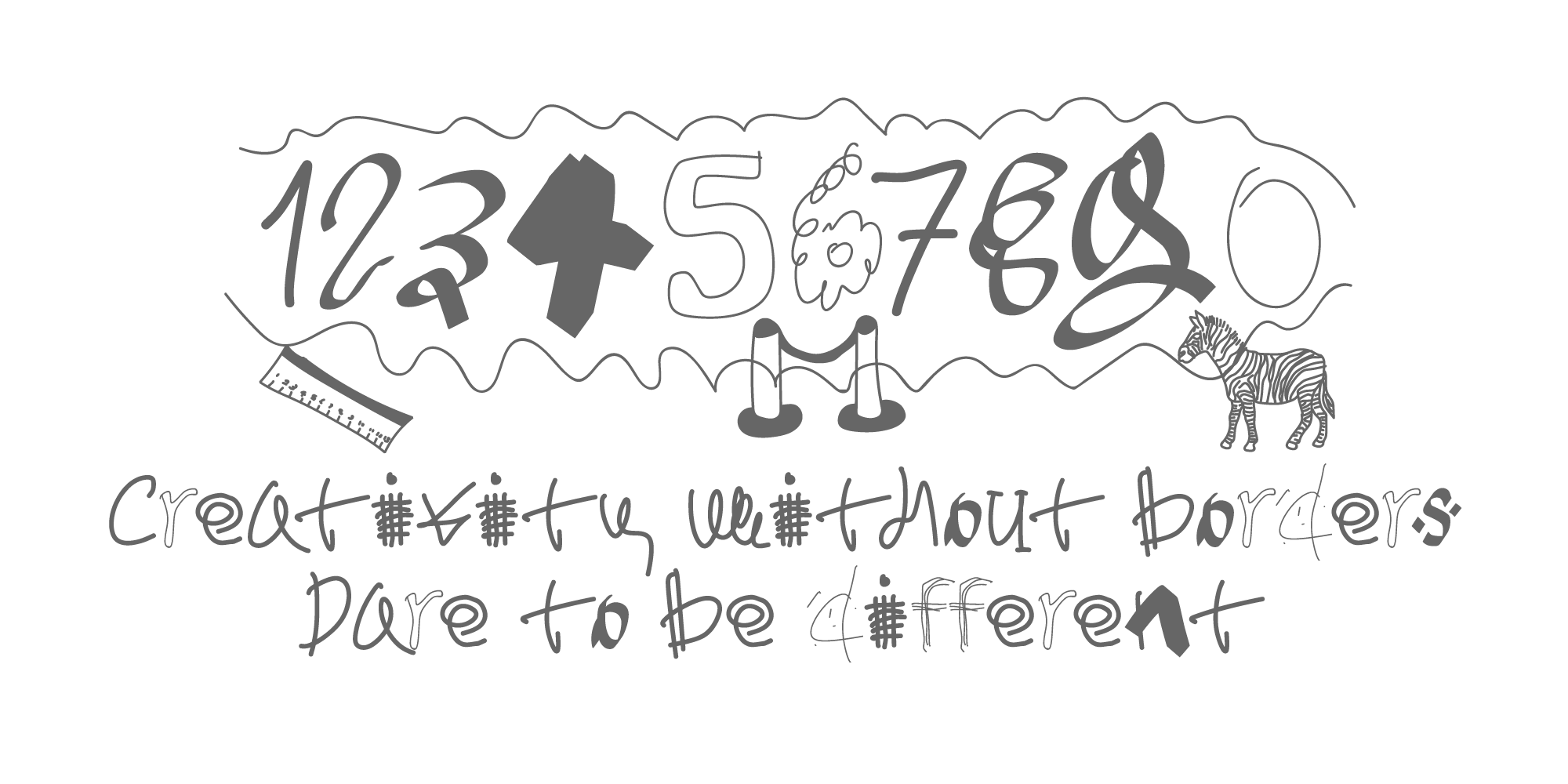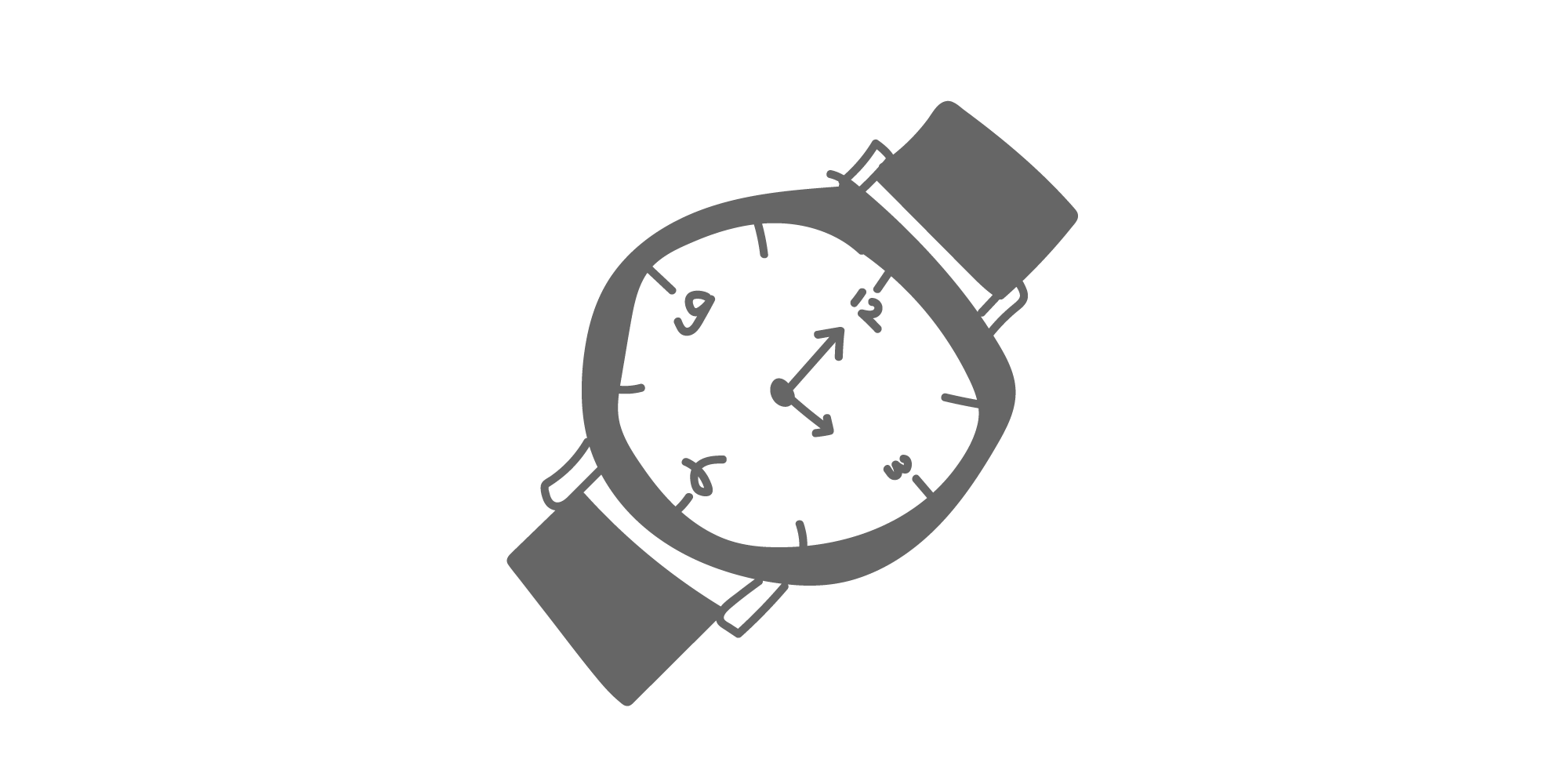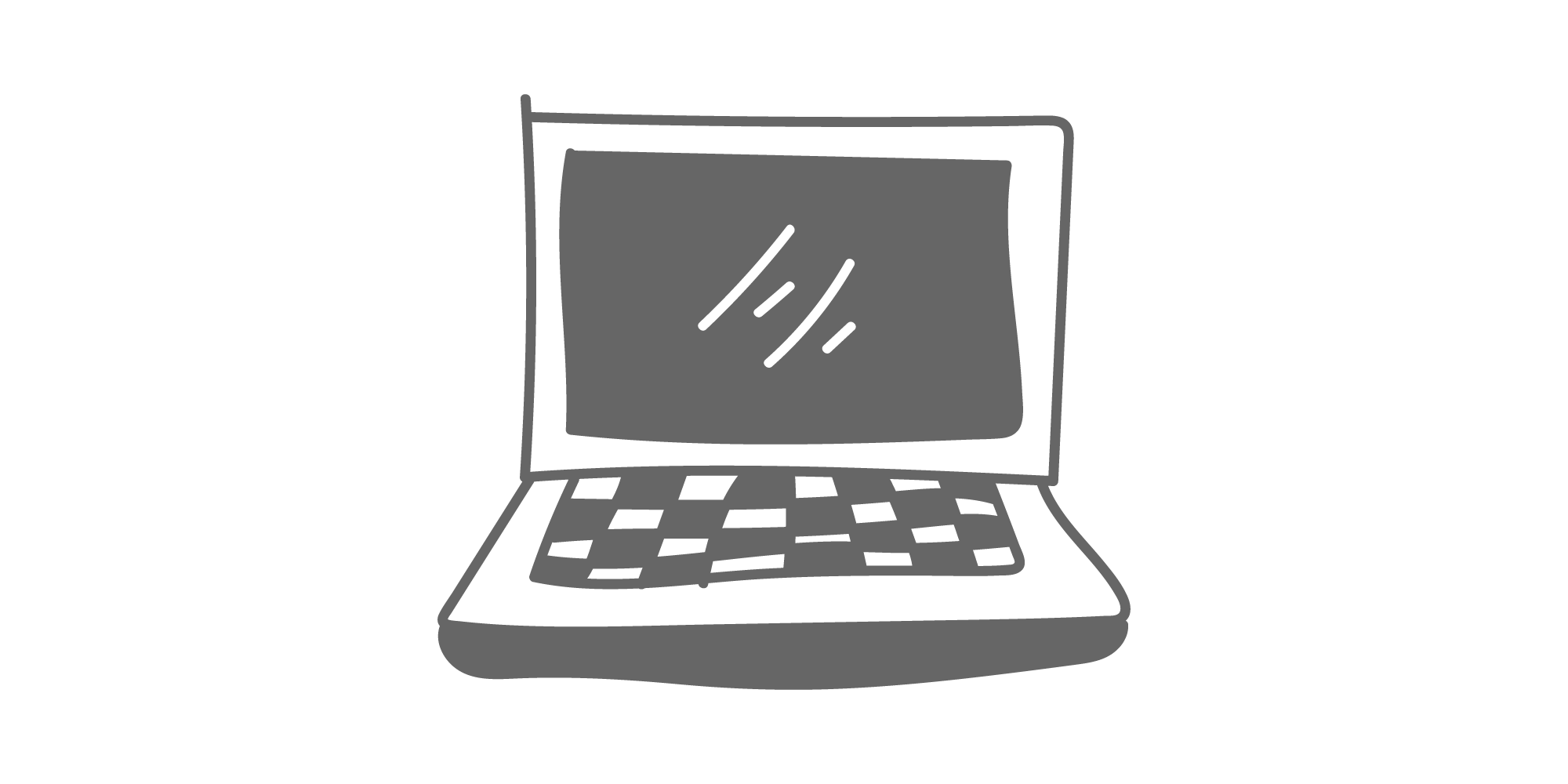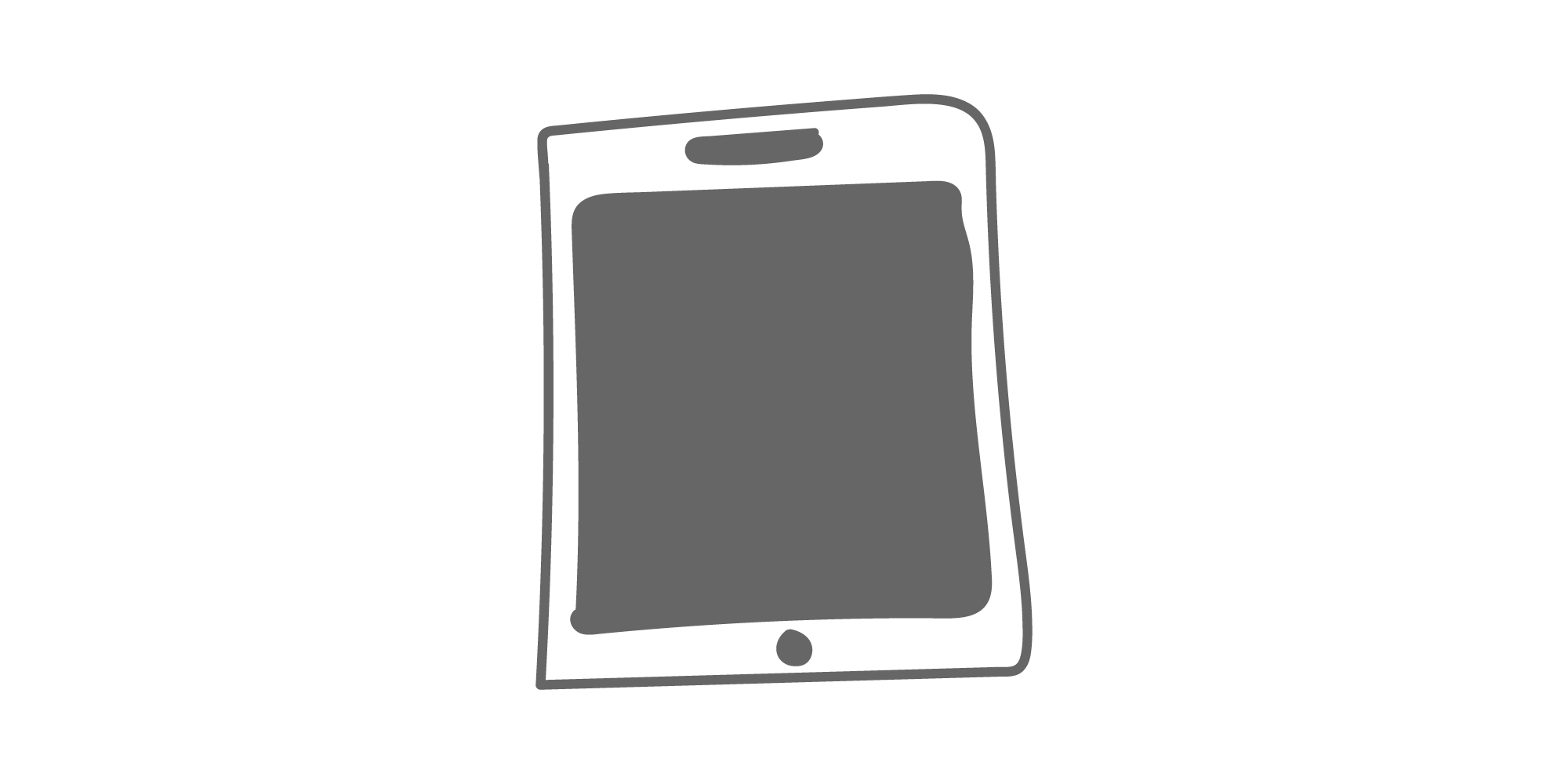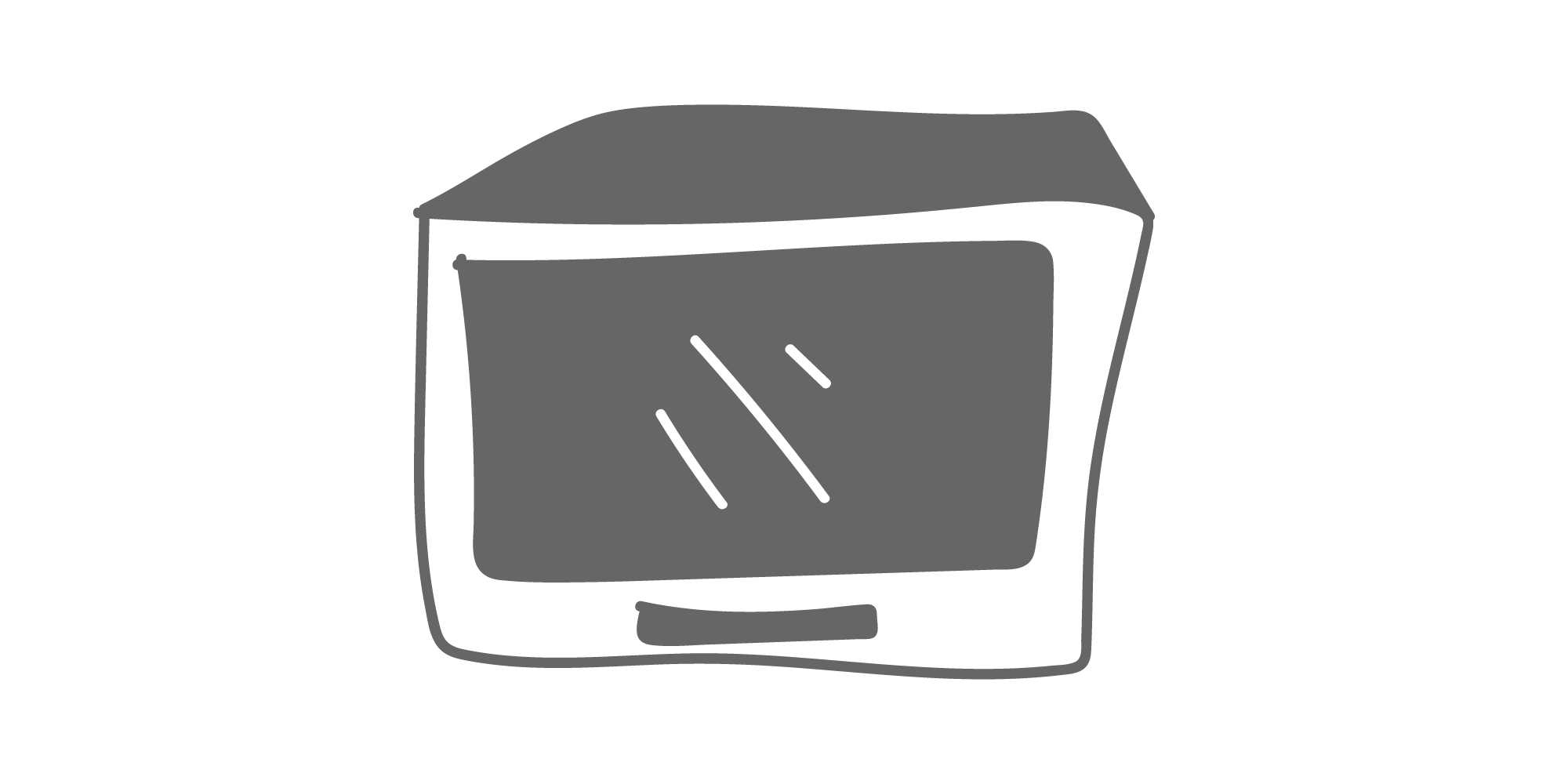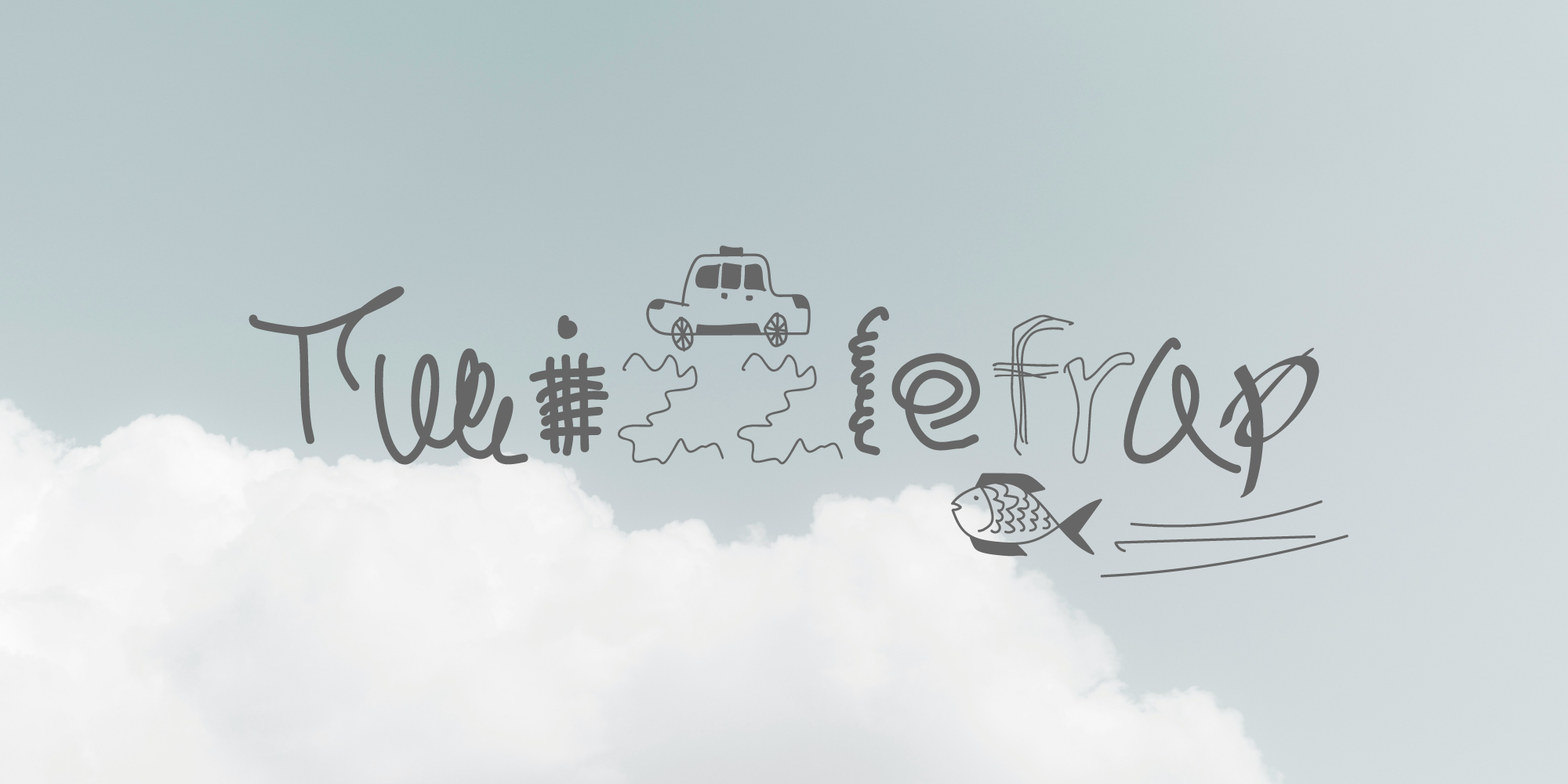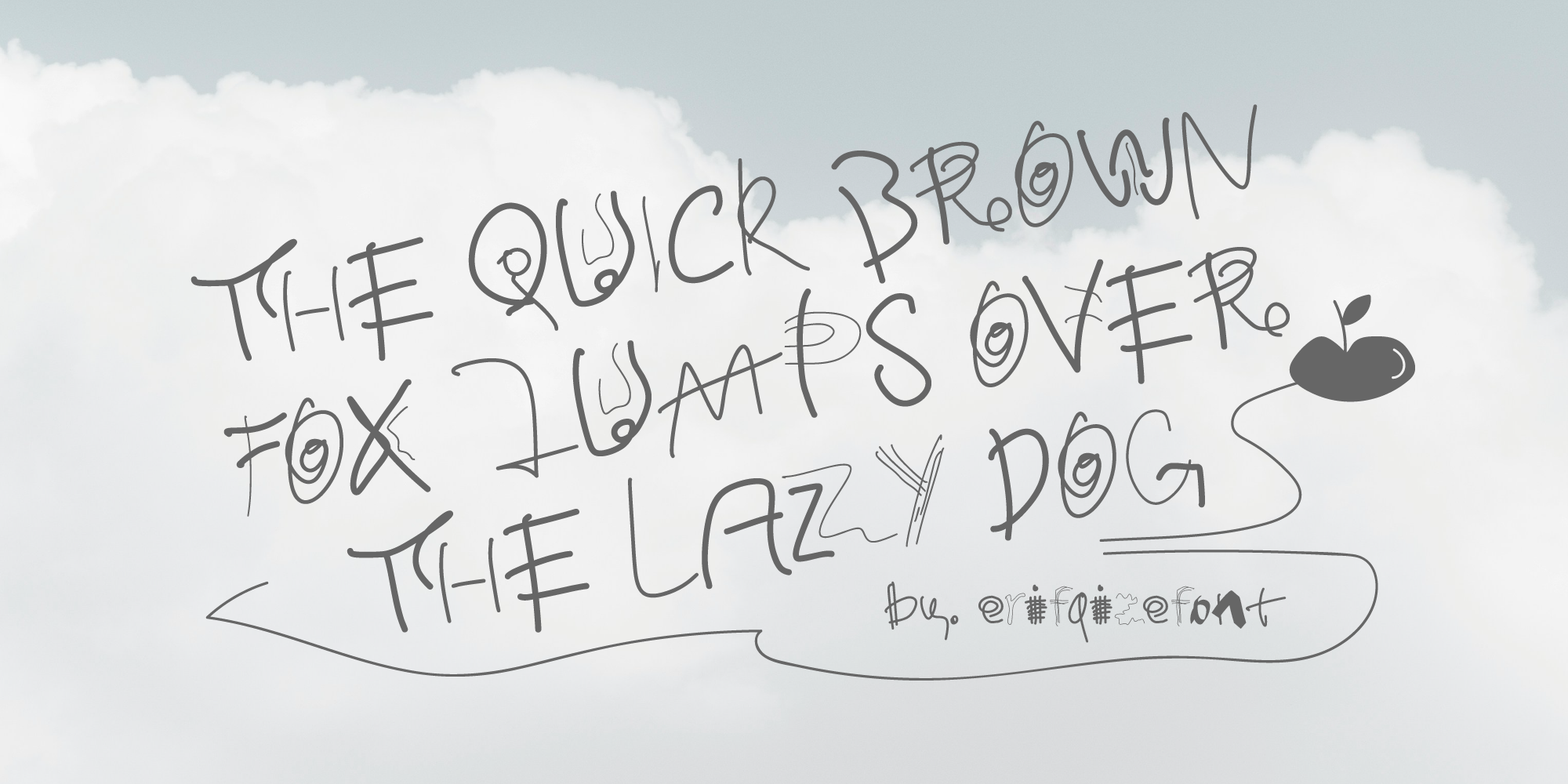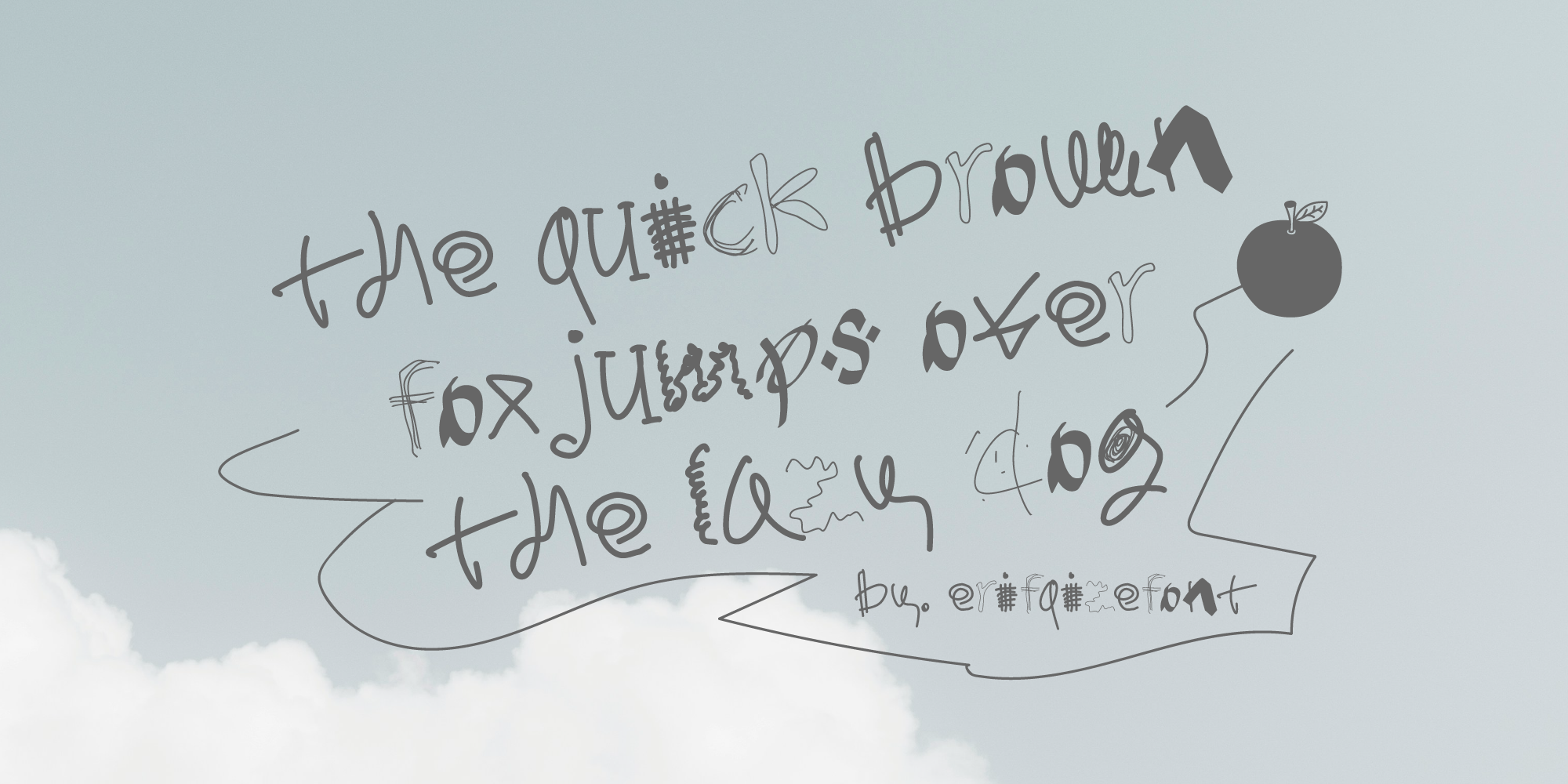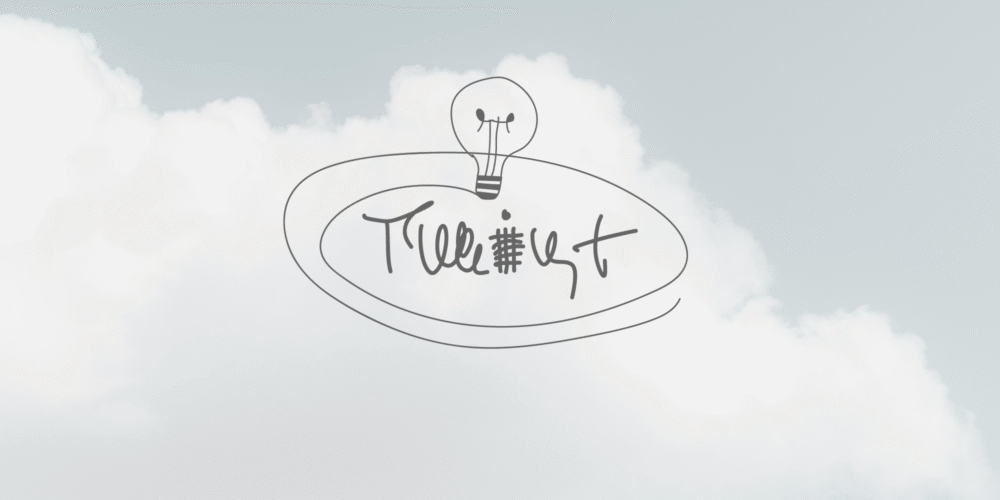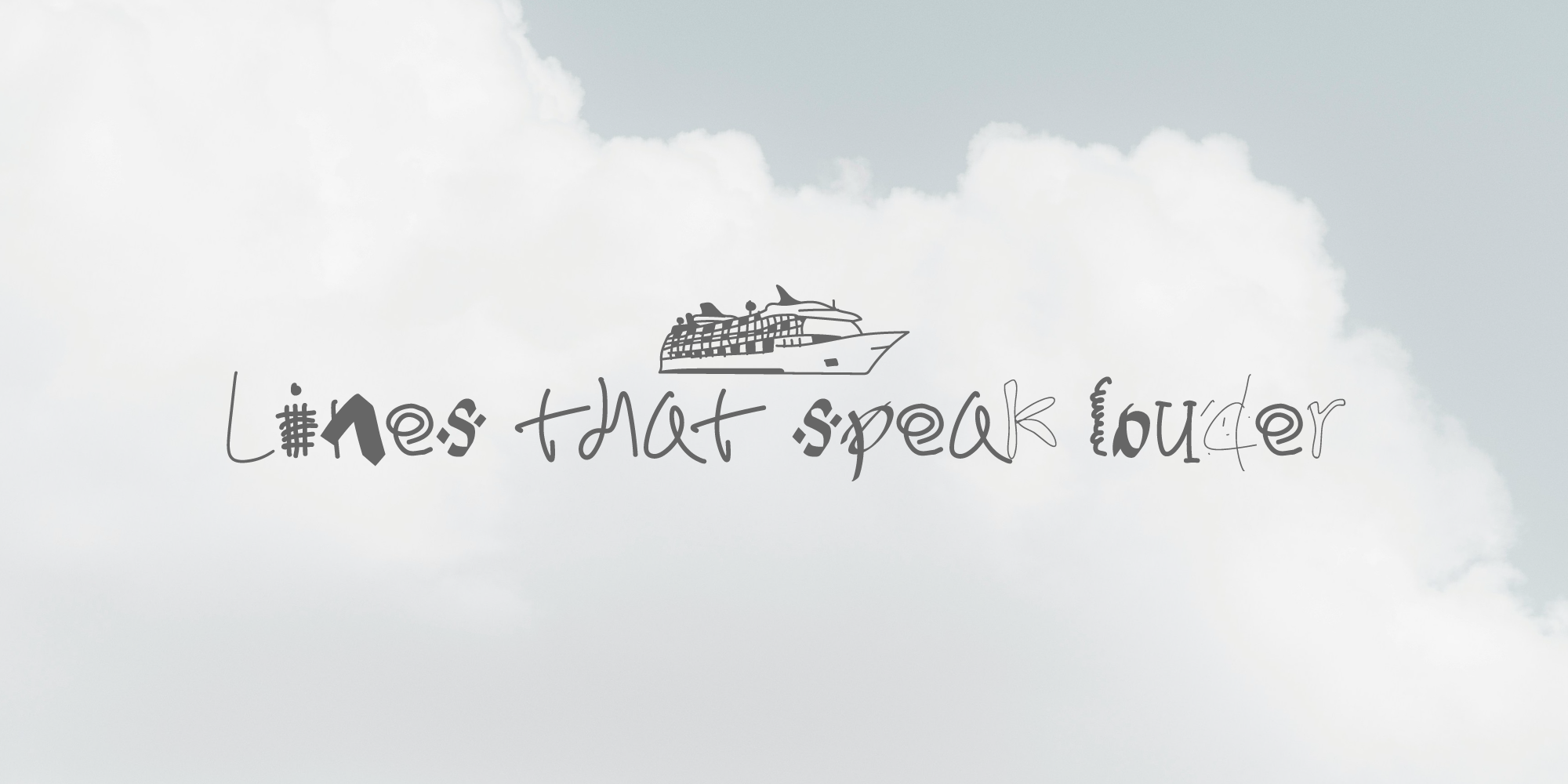
Twizzlefrap
Twizzlefrap is an abstract, scribble-themed display font bursting with expressive and artistic energy. Each letter is uniquely hand-crafted with untamed lines, playful distortions, and unpredictable forms, resulting in a bold and imaginative visual impact. This font brings a sense of raw creativity and spontaneity, making it perfect for art posters, indie zines, album covers, creative branding, and experimental design projects that crave a free-spirited, imaginative touch. With its sketch-like, spontaneous style, Twizzlefrap transforms every word into a lively piece of art.
As a bonus feature, Twizzlefrap includes an alternative icon set of abstract doodle objects mapped to uppercase A–Z. These playful extras add even more creative flexibility to your designs.
• Hand-drawn, abstract scribble style
• Full uppercase & lowercase characters
• Bonus: Icon set of abstract doodle objects (A–Z Uppercase)
• Numbers & punctuation
• Ideal for artistic, alternative, and expressive design use
Twizzlefrap – Abstract Scribble Font